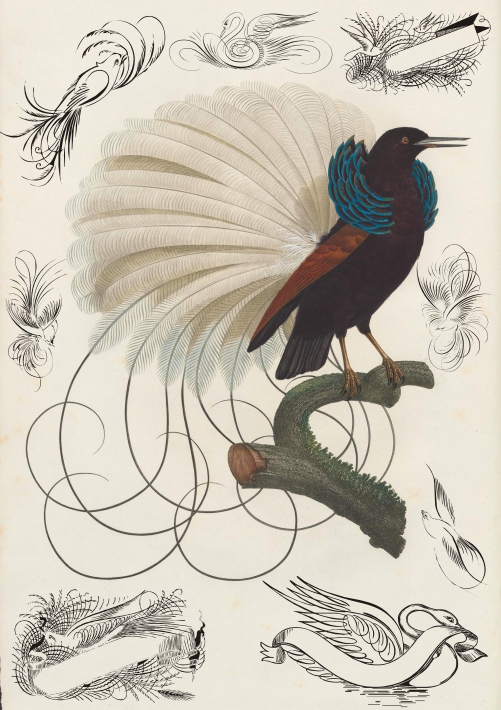
Penmanship Birds by Paulo W is a free animal dingbat font filled with finely drawn birds and feathered ornaments. The collection ranges from compact swan silhouettes to sweeping, plume-like forms, with changing line weight and long curves that suggest motion across the set.
It is especially suited to invitations, where a single bird can serve as an elegant emblem, and also fits botanical packaging or nature-themed posters. For editorial design, the detailed feathers can extend an illustration vocabulary into section markers and decorative borders.